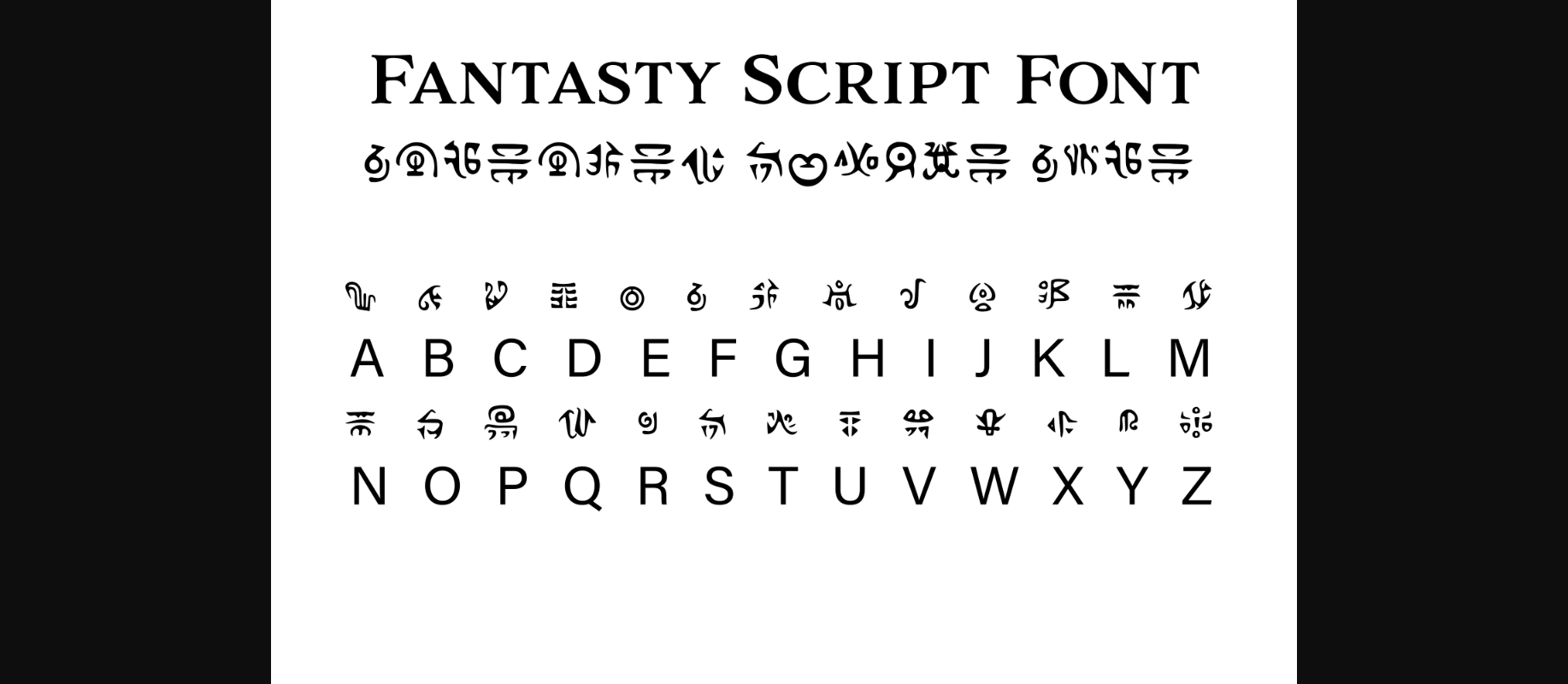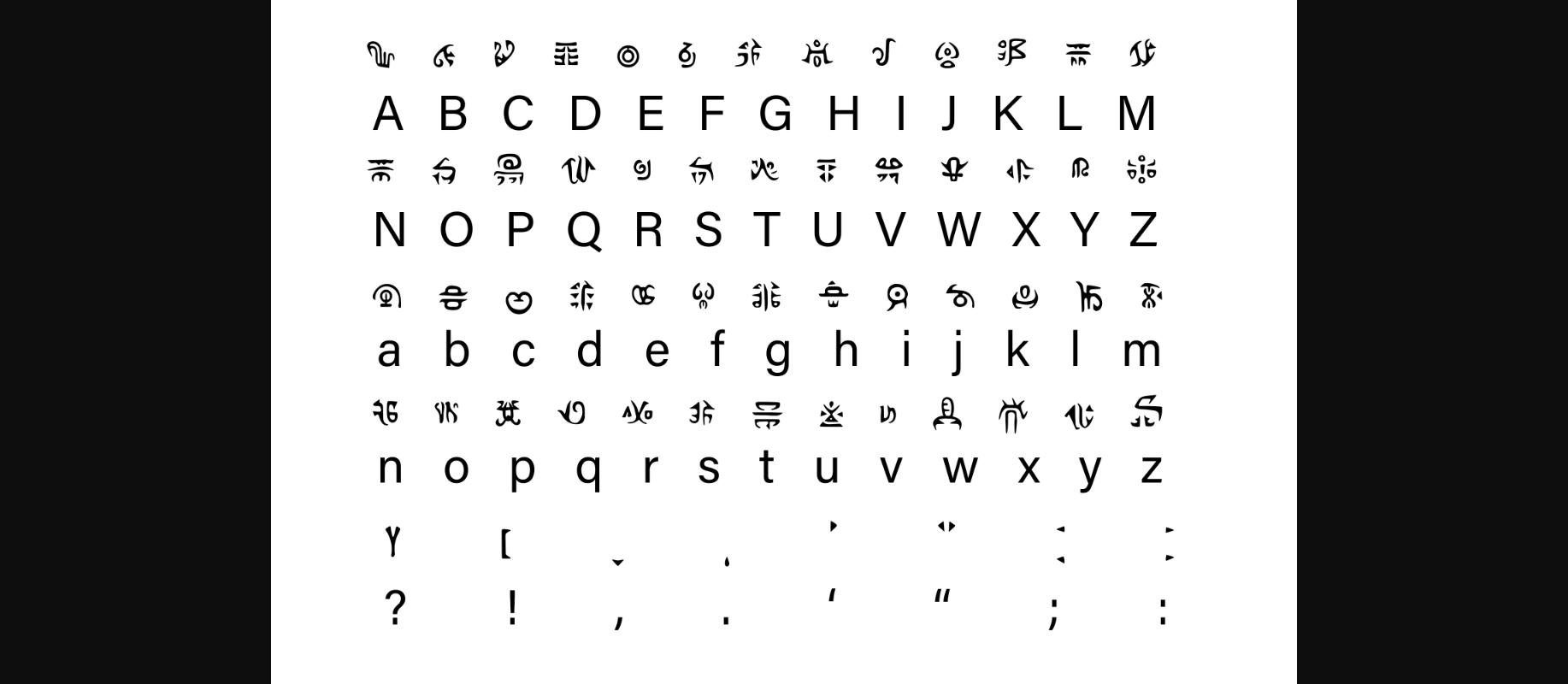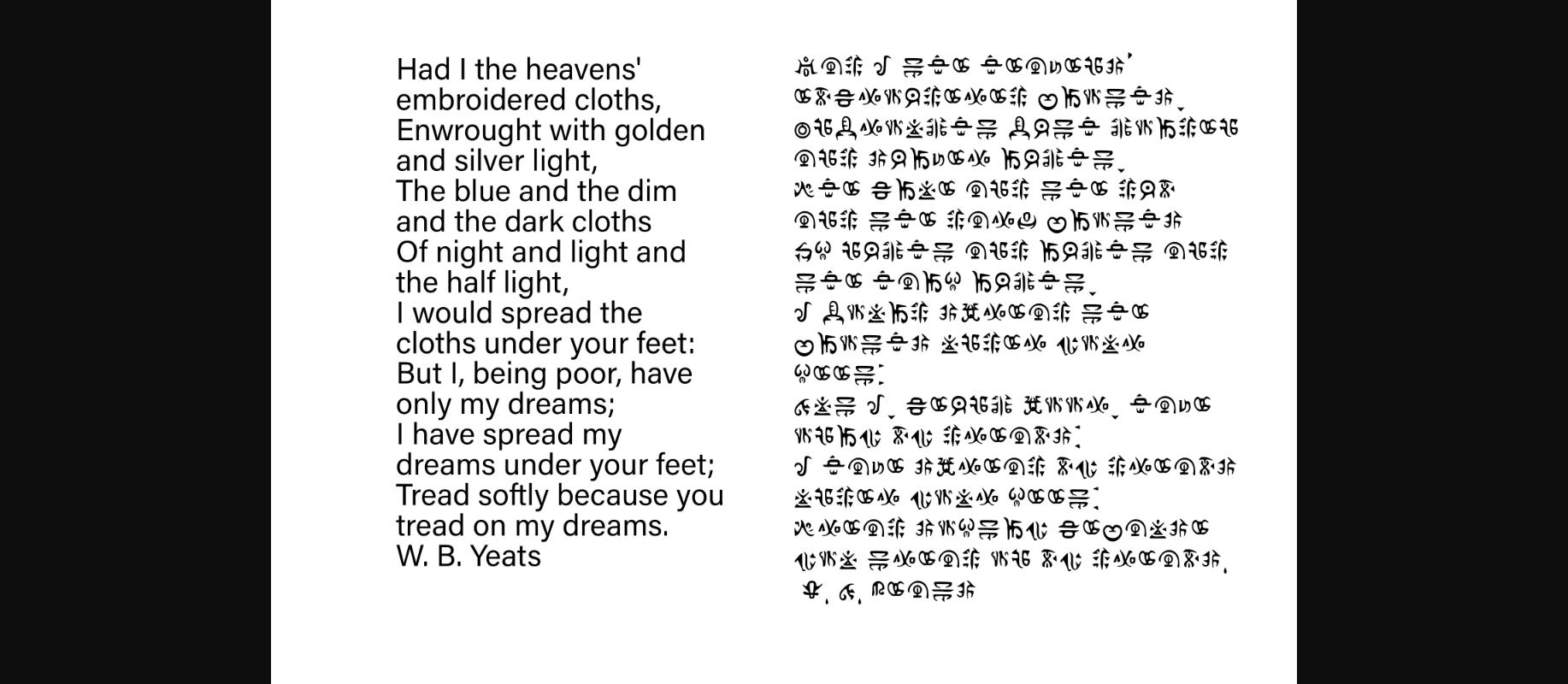
HomeDecorative FontsFantasy Script 5 Font Decorative Fonts Fantasy Script 5 Font FacebookXPinterestWhatsApp 1 of 5 ... Fantasy Script 5 Font Poster 2... Fantasy Script 5 Font Poster 3... Fantasy Script 5 Font Poster 4... Fantasy Script 5 Font Poster 5... About Fantasy Script 5 Font Fantasy is perfect for your next Dungeons and Dragons campaign, fantasy LARP adventure, novel, or whatever else you’re working on! This font includes the standard English alphabet and basic punctuation. DOWNLOAD NOW People also explored Display Font Collection Font Segoul Font Space Zone Font Caprese Font Masone Font March Wonderful Font Stacylia Font Herliana Font Little Blome Font 395 0 TagsFantasy Script 5 Font Previous articleFantasy Script 6 FontNext articleFantasy Script 3 Font LEAVE A REPLY Cancel reply Comment: Please enter your comment! Name:* Please enter your name here Email:* You have entered an incorrect email address! Please enter your email address here Website: Save my name, email, and website in this browser for the next time I comment. Personal Use Free Pinky Personal Use Free Read more about this font Unispace Personal Use Free Read more about this font Makeba Font Personal Use Free Read more about this font Sathscha Personal Use Free Read more about this font BLOG Fonts That Capture the Spirit of New York City New York City is more than just a place—it’s an experience, a rhythm, a visual language... Exploring Font Trends Best Fonts for YouTube Videos: Make Your Thumbnails Stand Out To increase your work productivity, choose the most readable fonts.